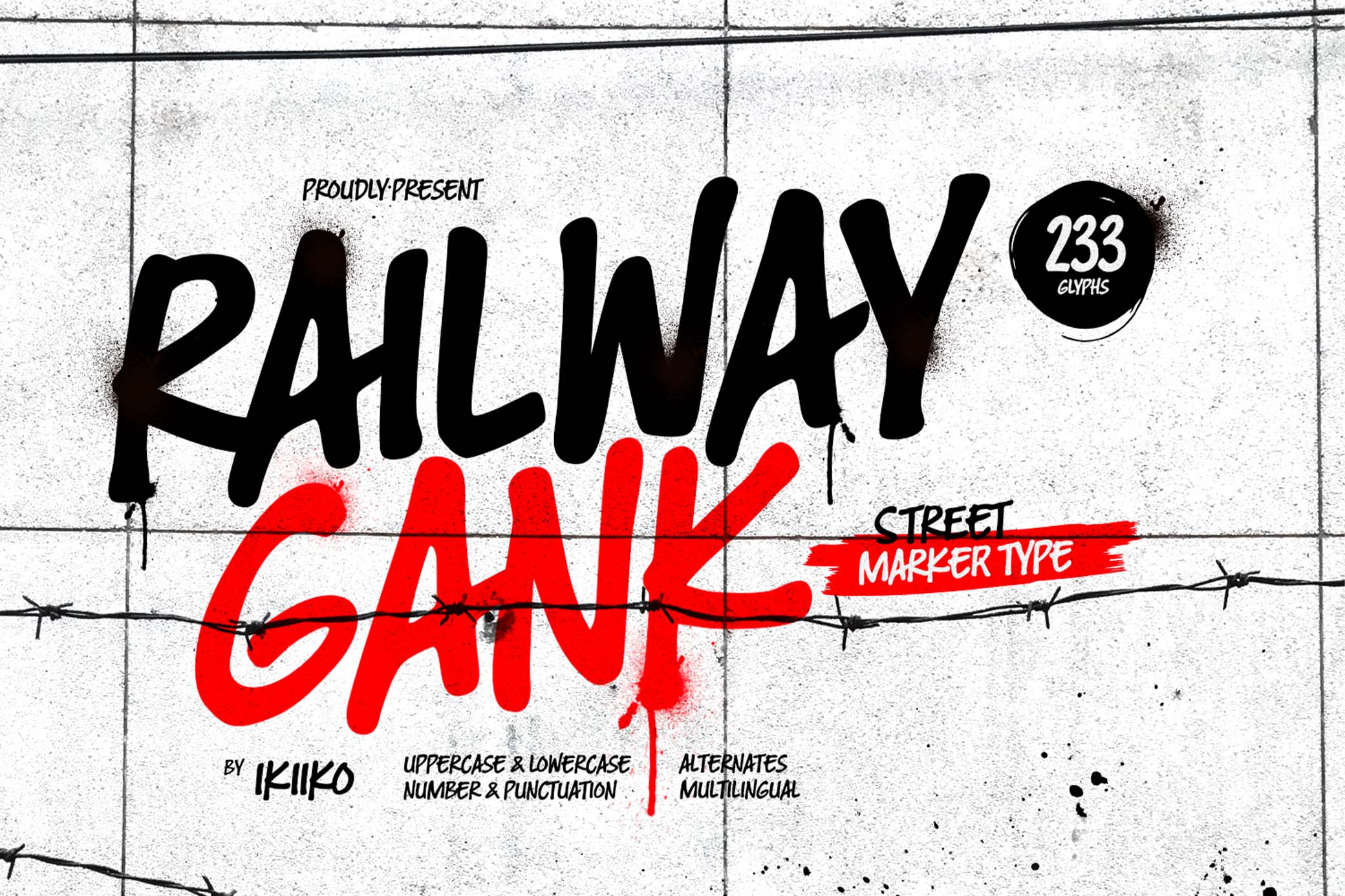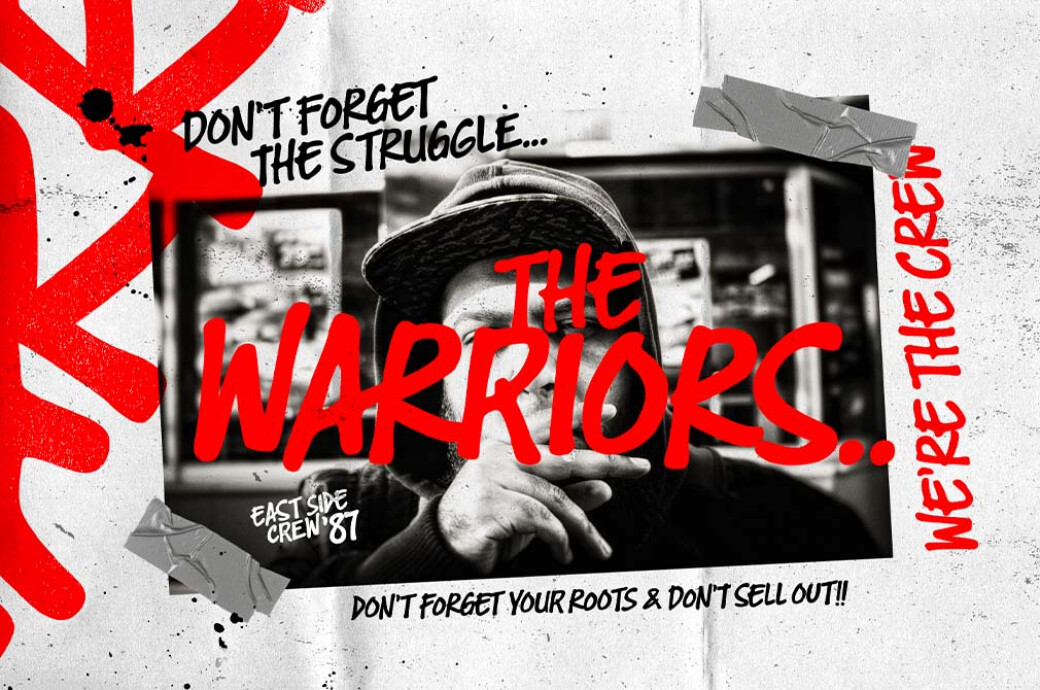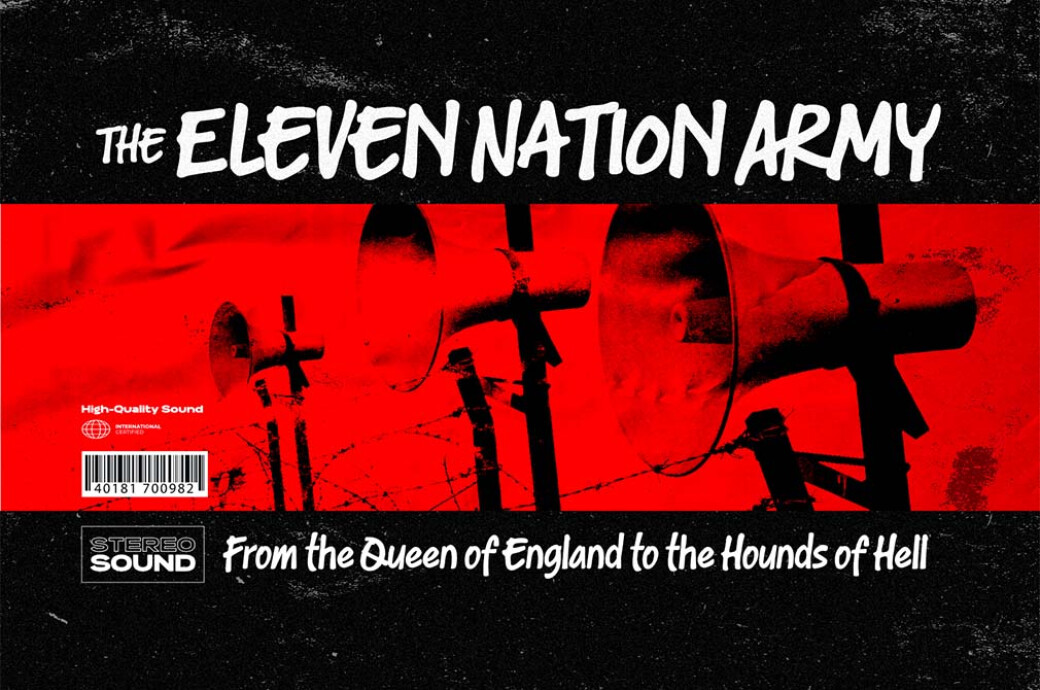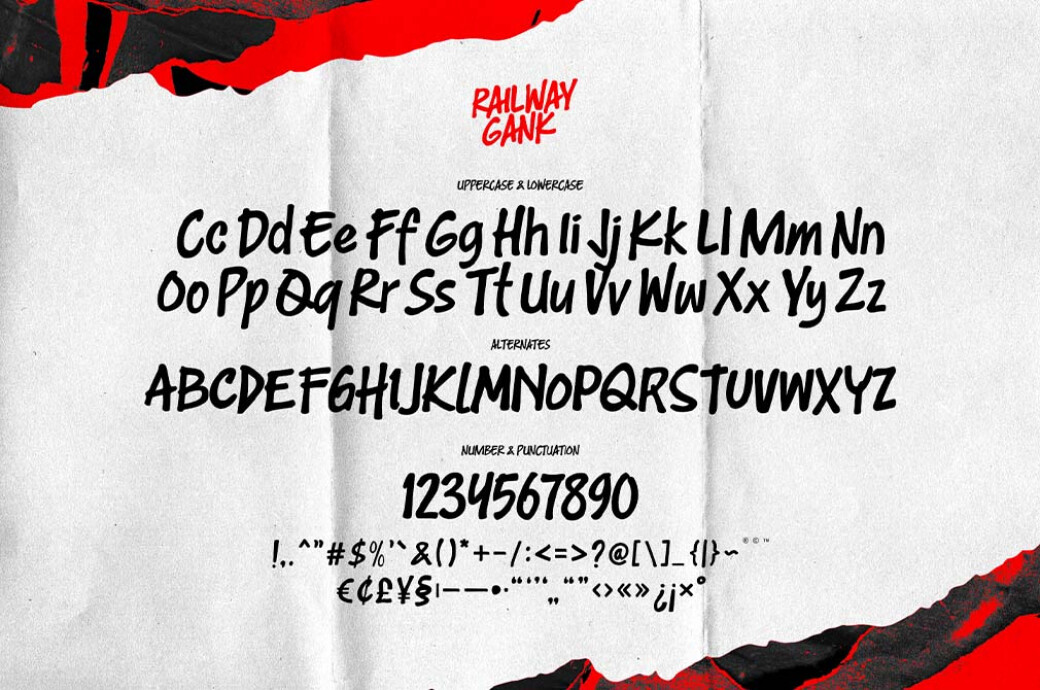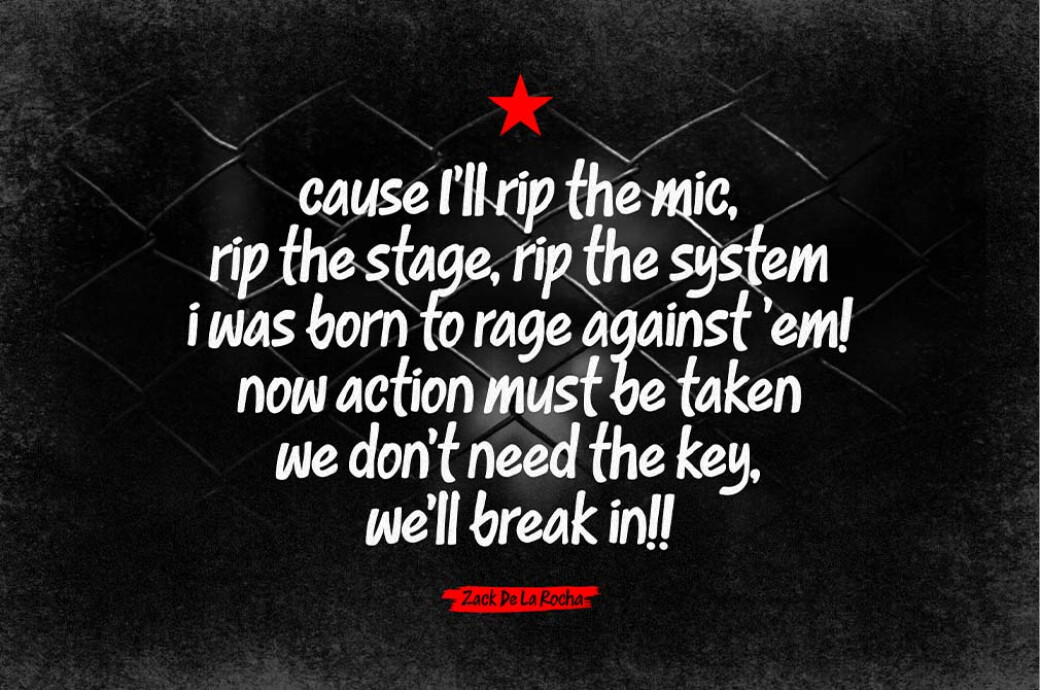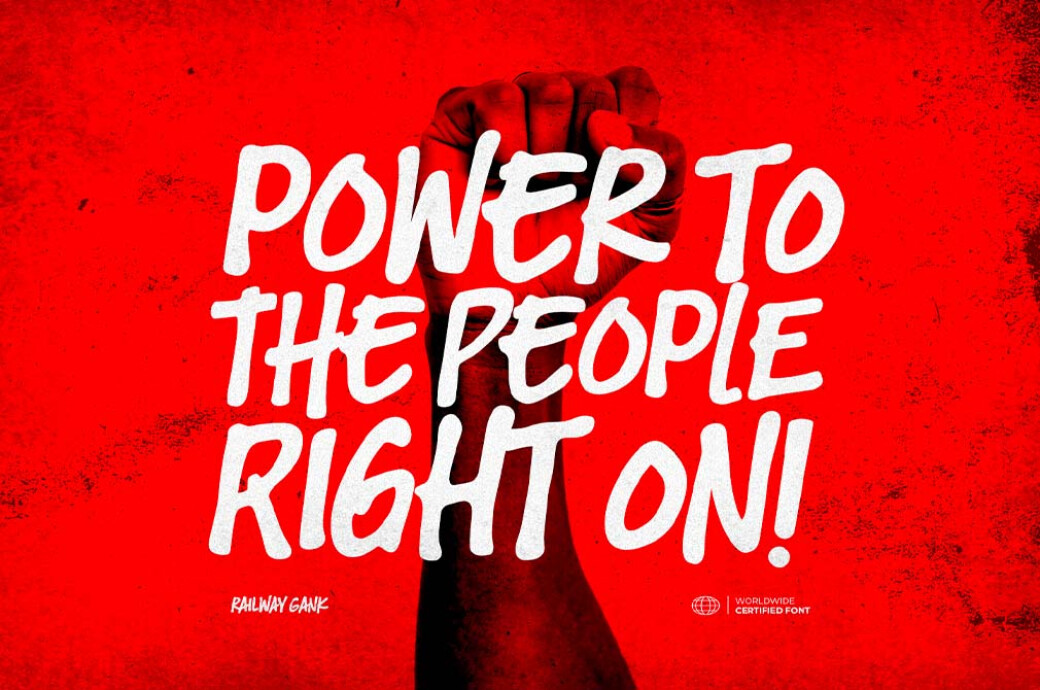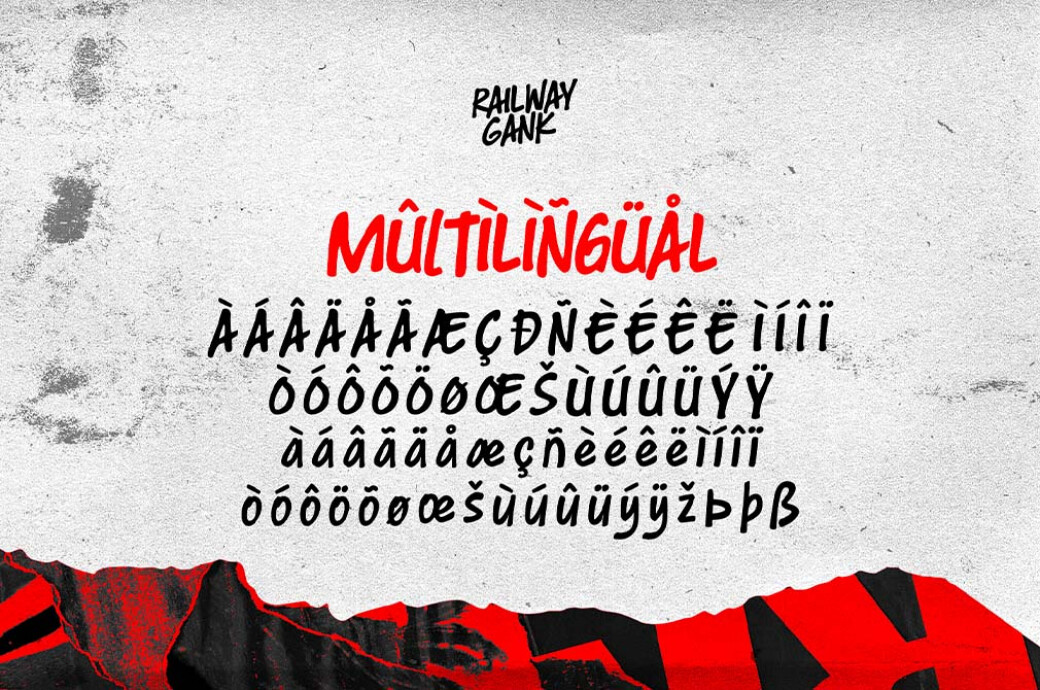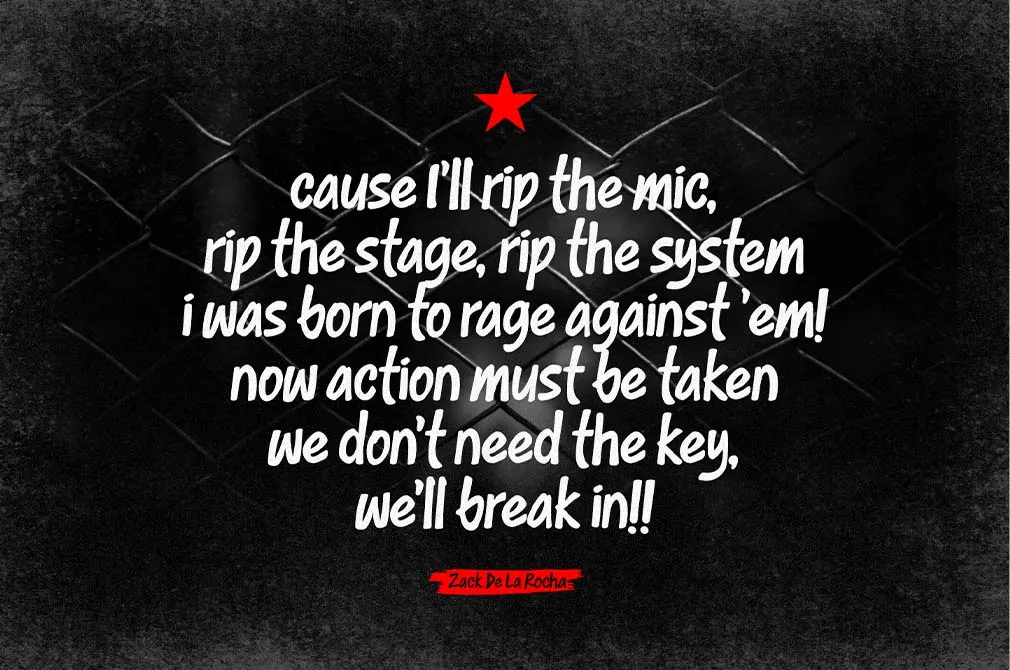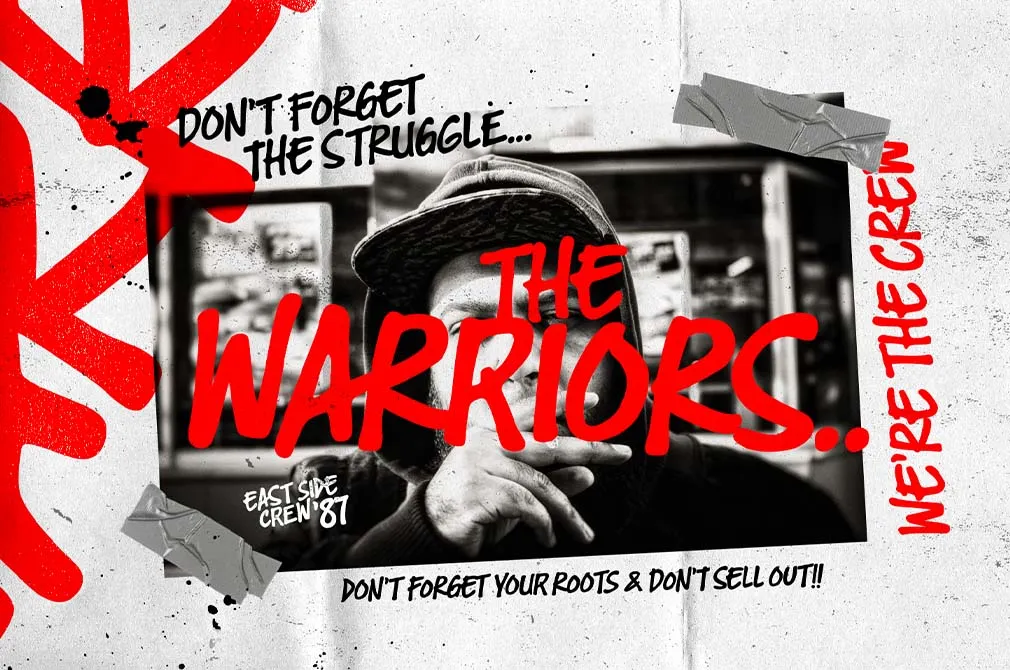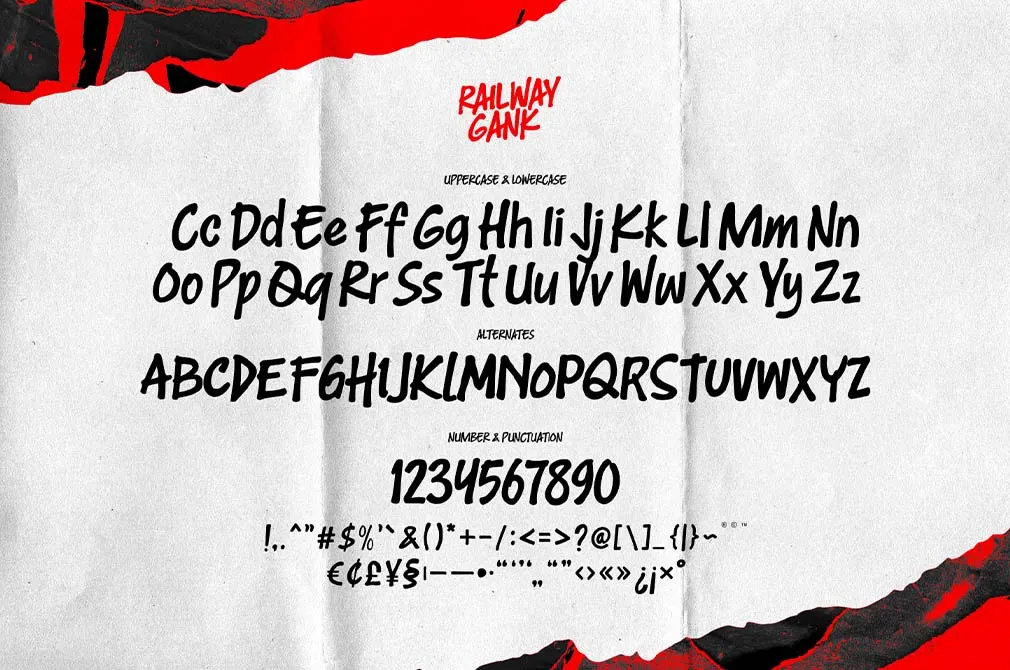
Railway Gank — Street Marker Font
This is Railway Gank, folks! This font grabs attention because it embodies the uncensored reality of street art and graffiti.
Railway Gank uppercase letters exude confidence and flare, while the lowercase letters give off a more laid-back and welcoming vibe. The font features uppercase letters full of confidence and flare, while the lowercase letters conveys a more laid-back vibe. Also, there are numbers, punctuation, alternates, and multilingual support.